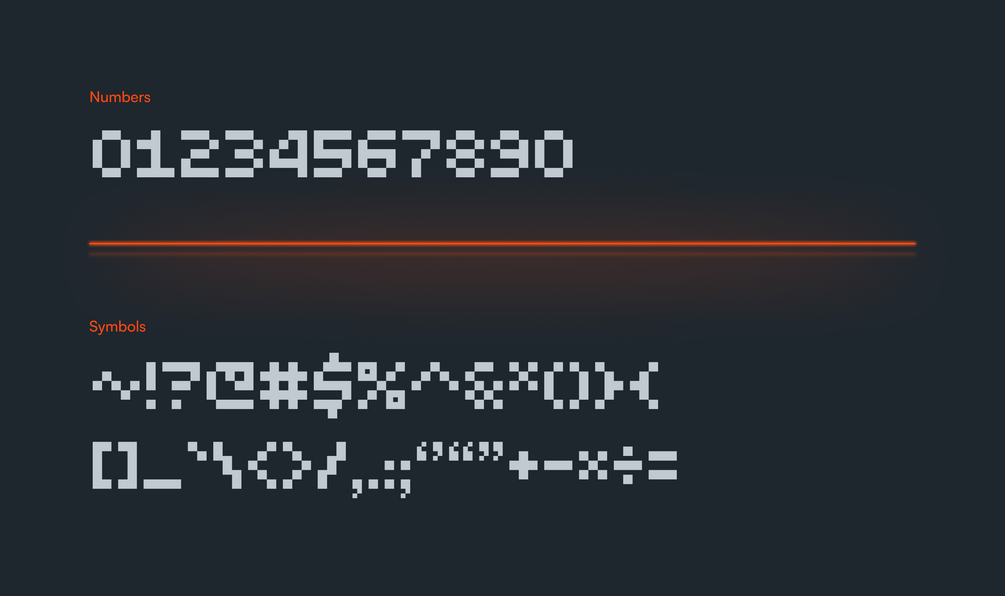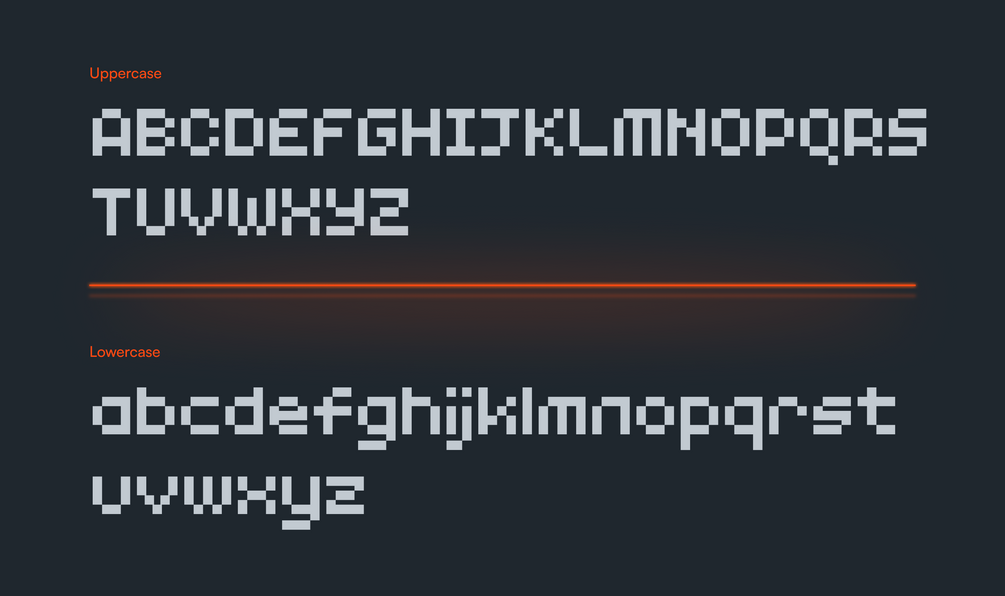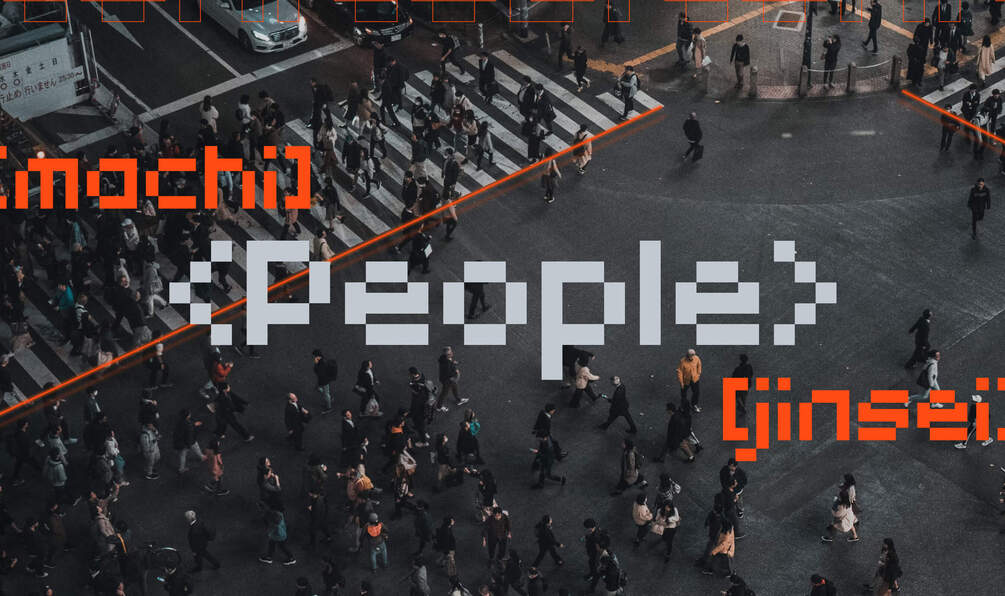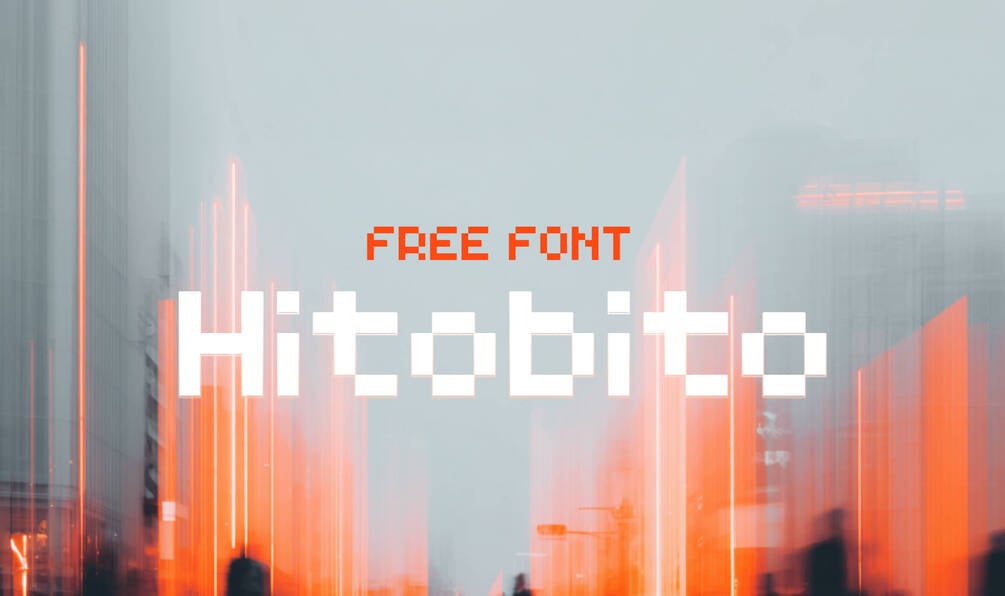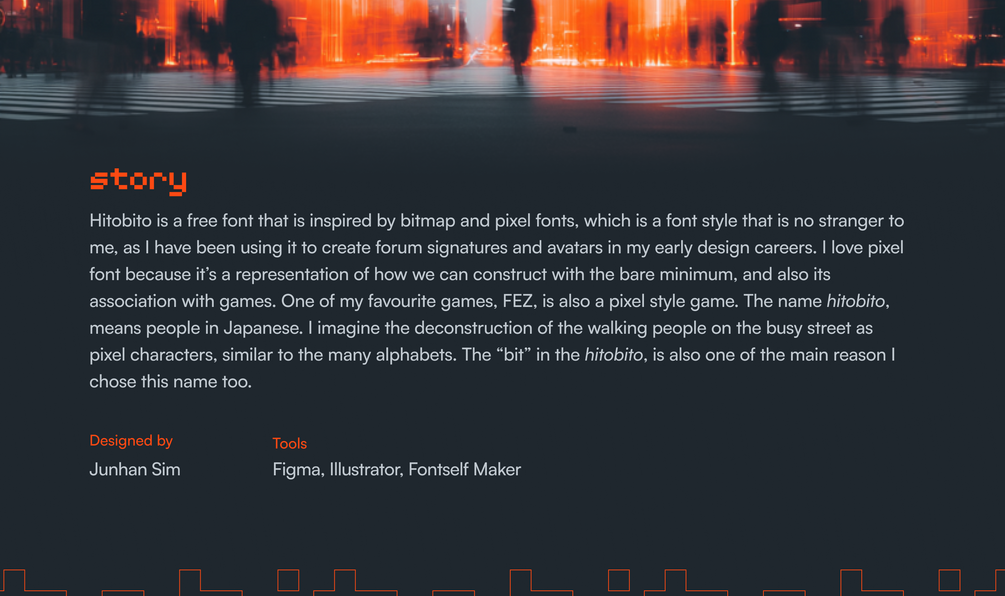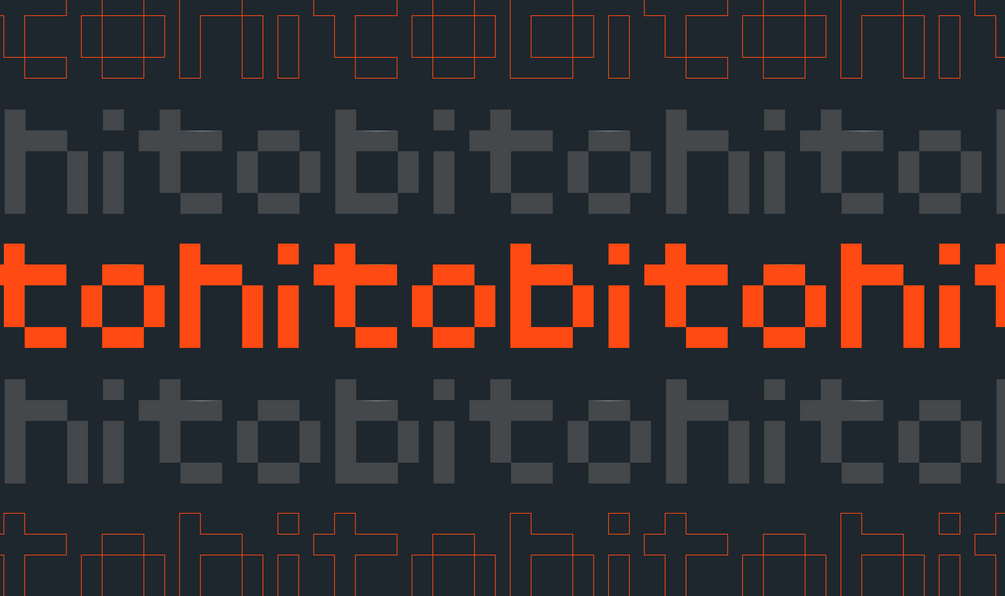
Hitobito - free font
Hitobito is a free font that is inspired by bitmap and pixel fonts, which is a font style that is no stranger to me, as I have been using it to create forum signatures and avatars in my early design careers. I love pixel font because it’s a representation of how we can construct with the bare minimum, and also its association with games. One of my favourite games, FEZ, is also a pixel style game. The name hitobito, means people in Japanese. I imagine the deconstruction of the walking people on the busy street as pixel characters, similar to the many alphabets. The “bit” in the hitobito, is also one of the main reason I chose this name too.
Hitobito font comes with basic latin characters including uppercases, lowercases, numbers and selected punctuations. Hitobito is free and it’s suitable for display and as wordmark. You can download it for free for personal and commercial use.